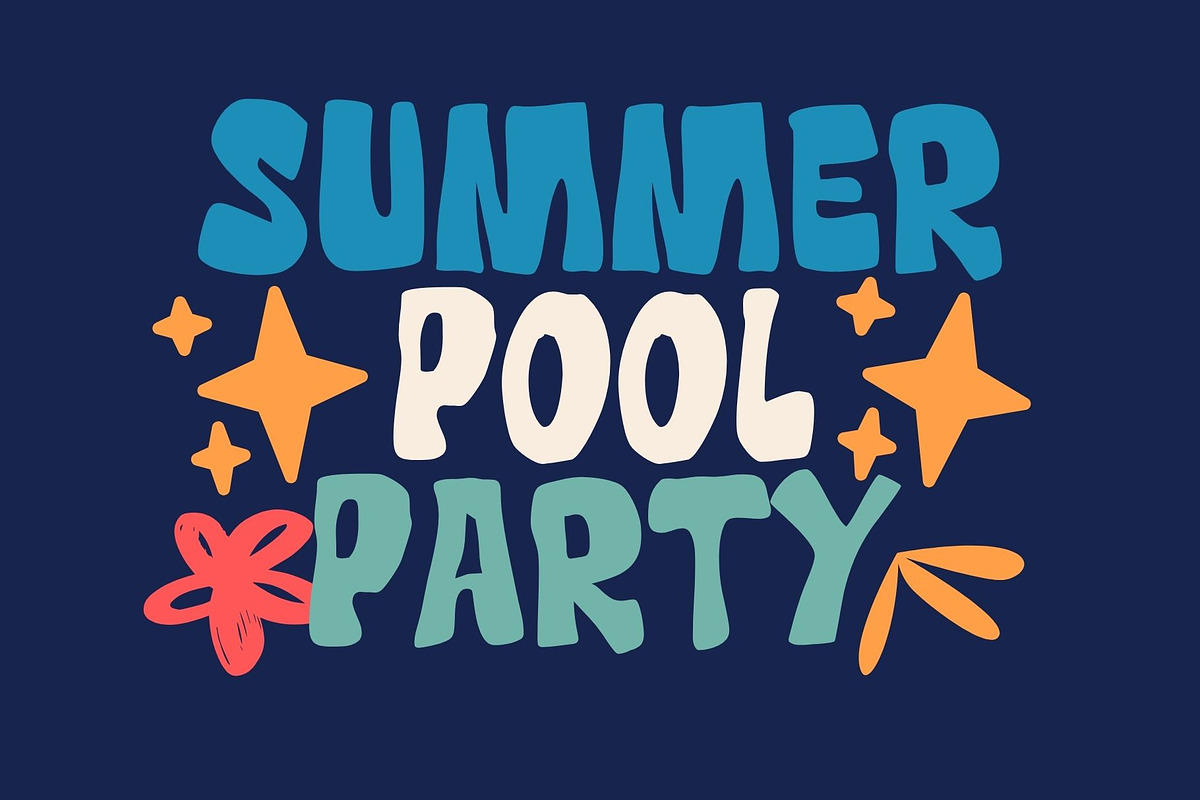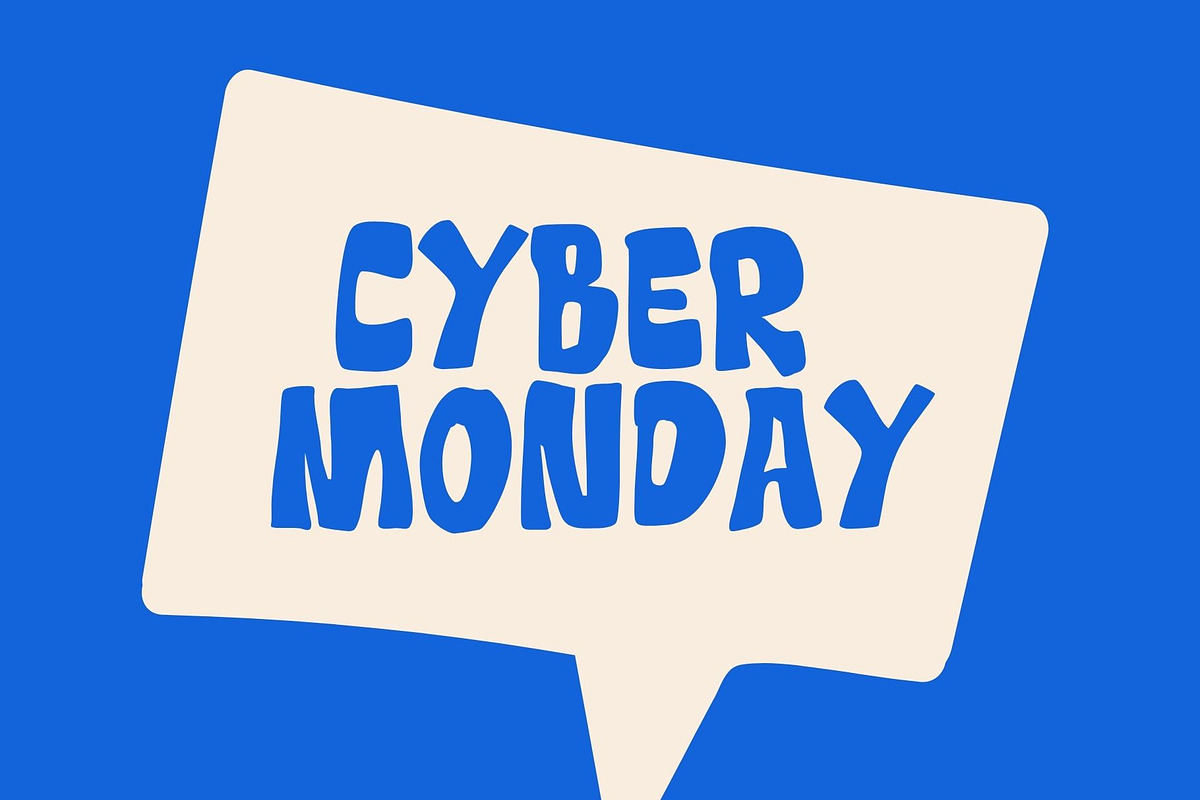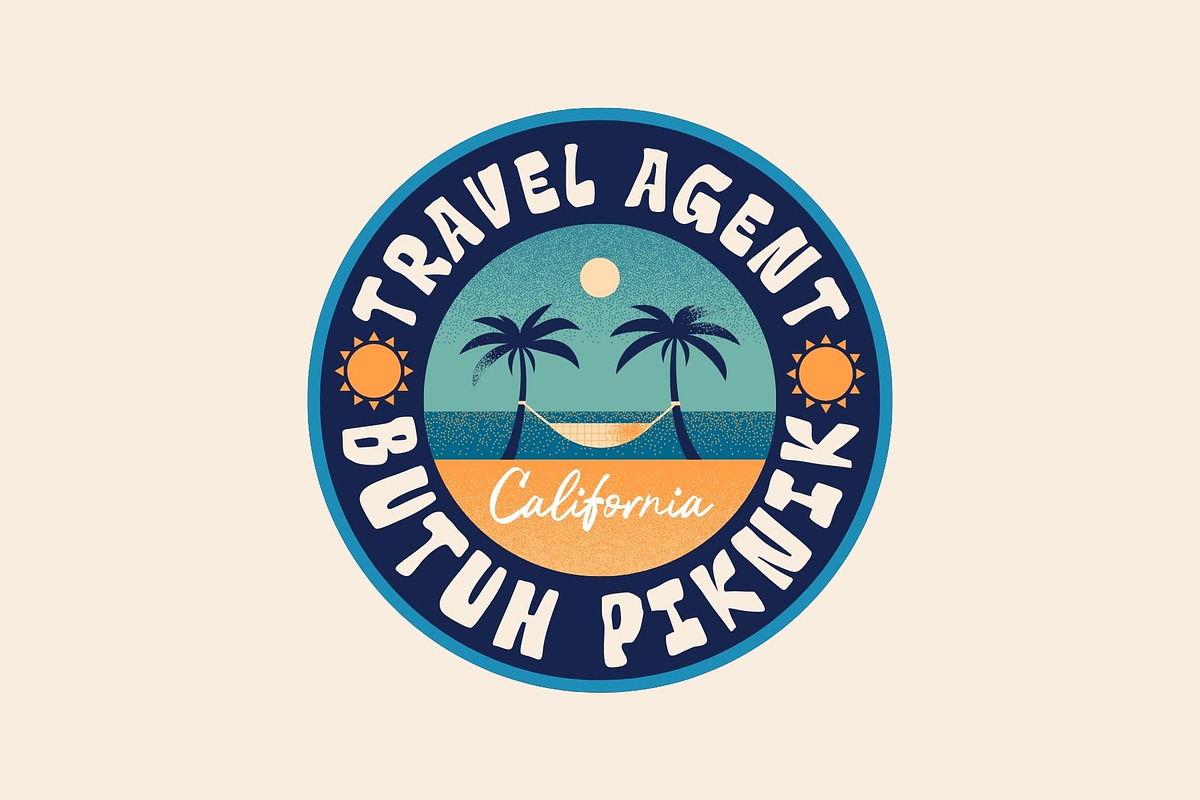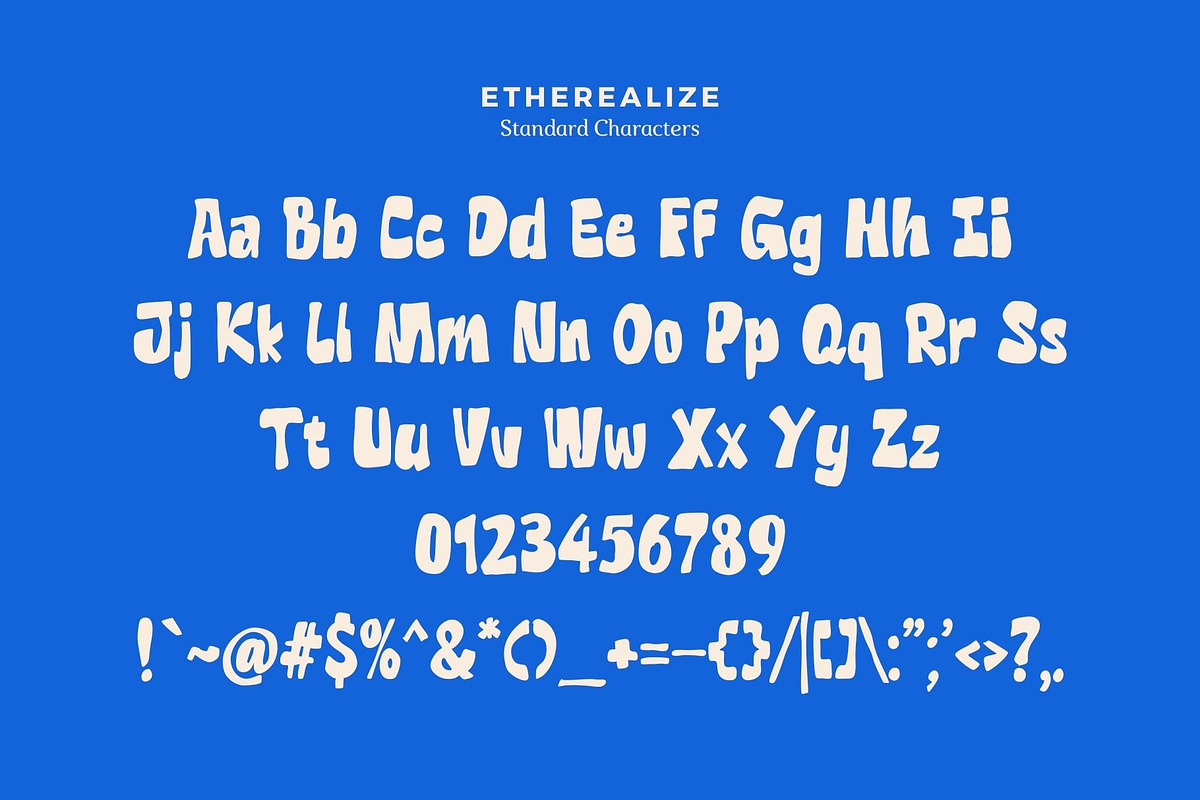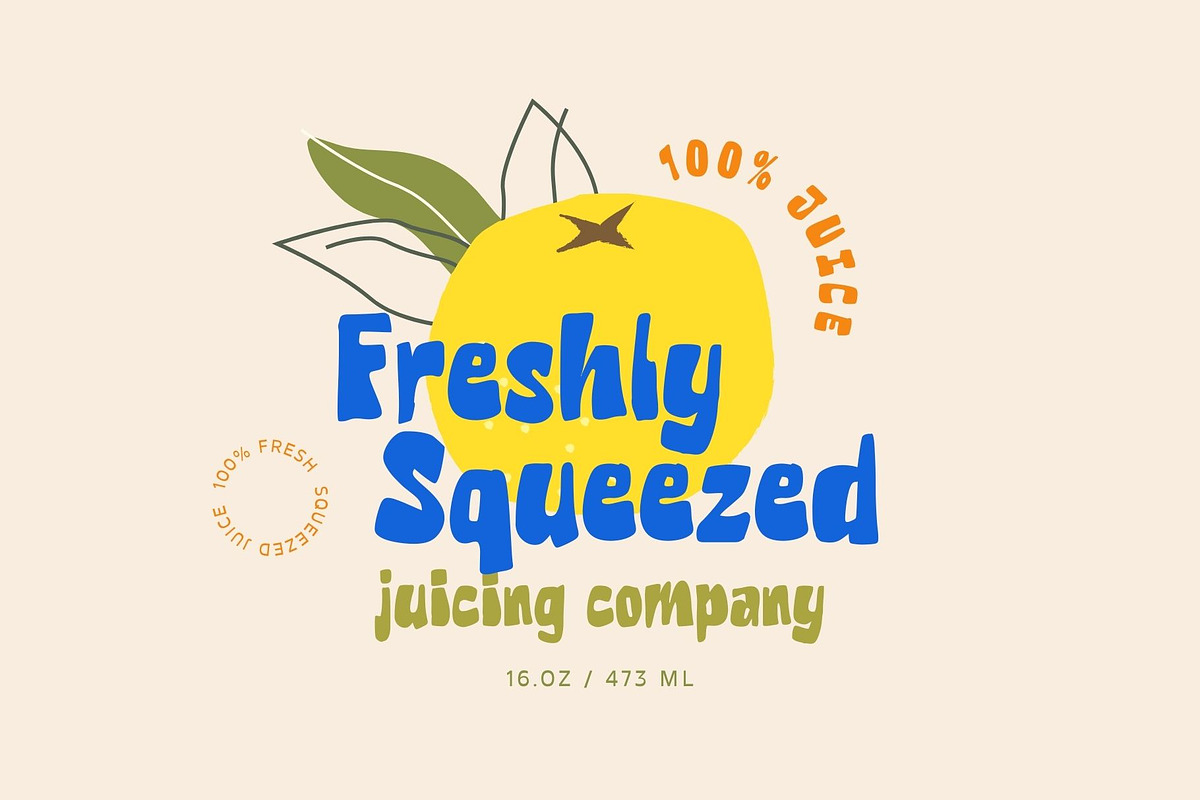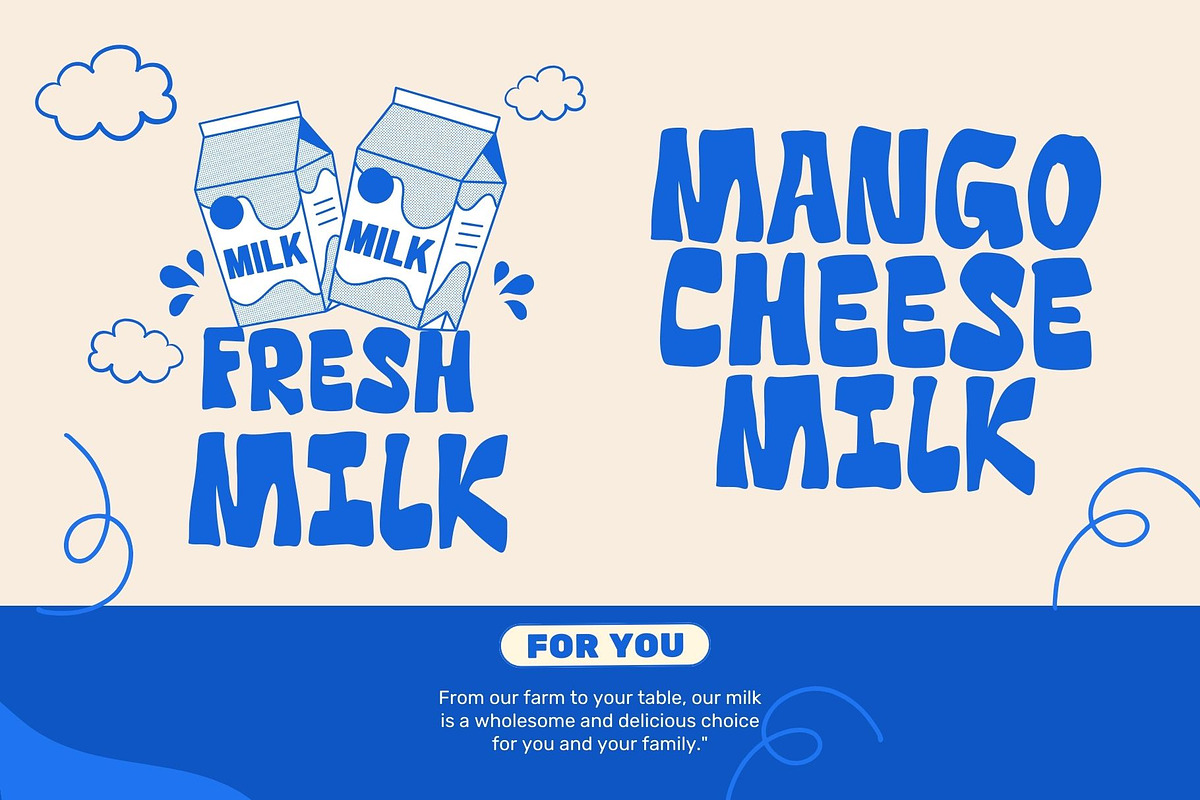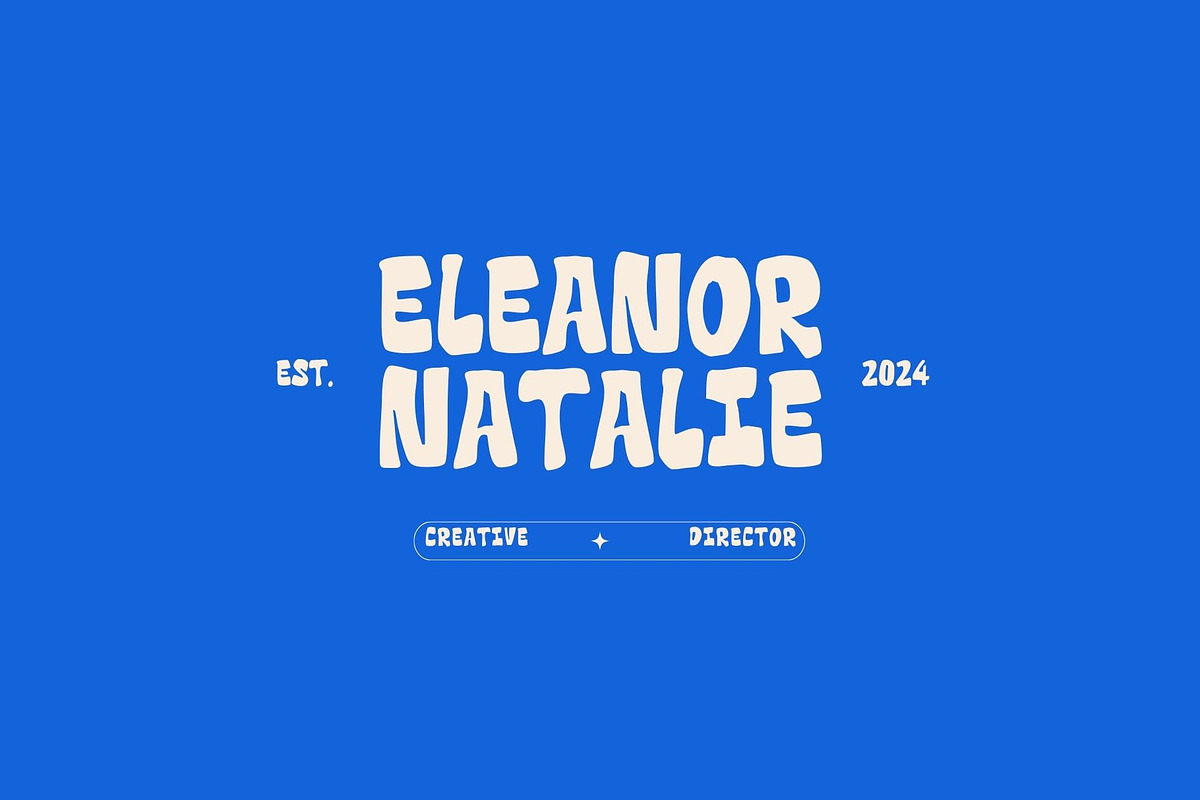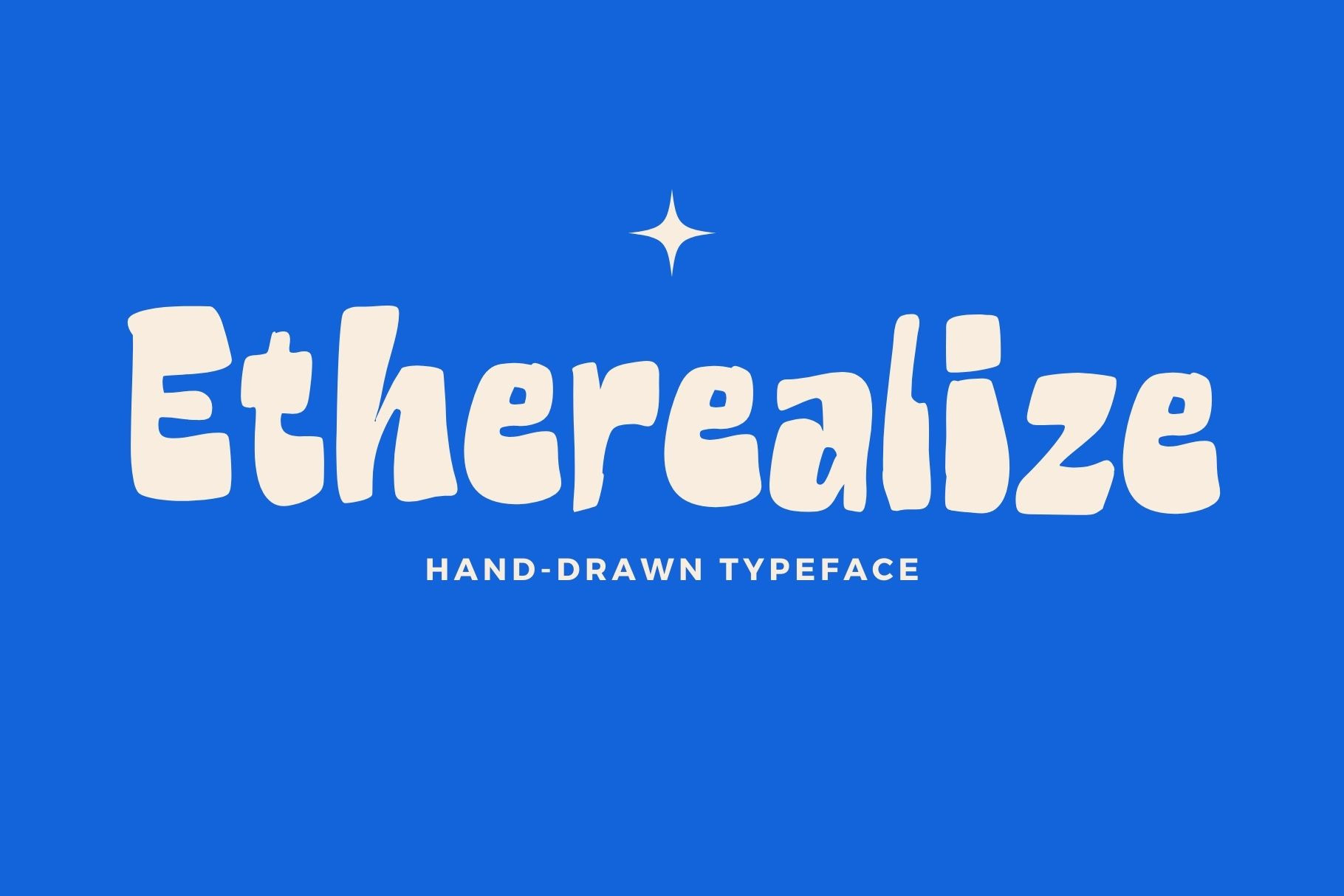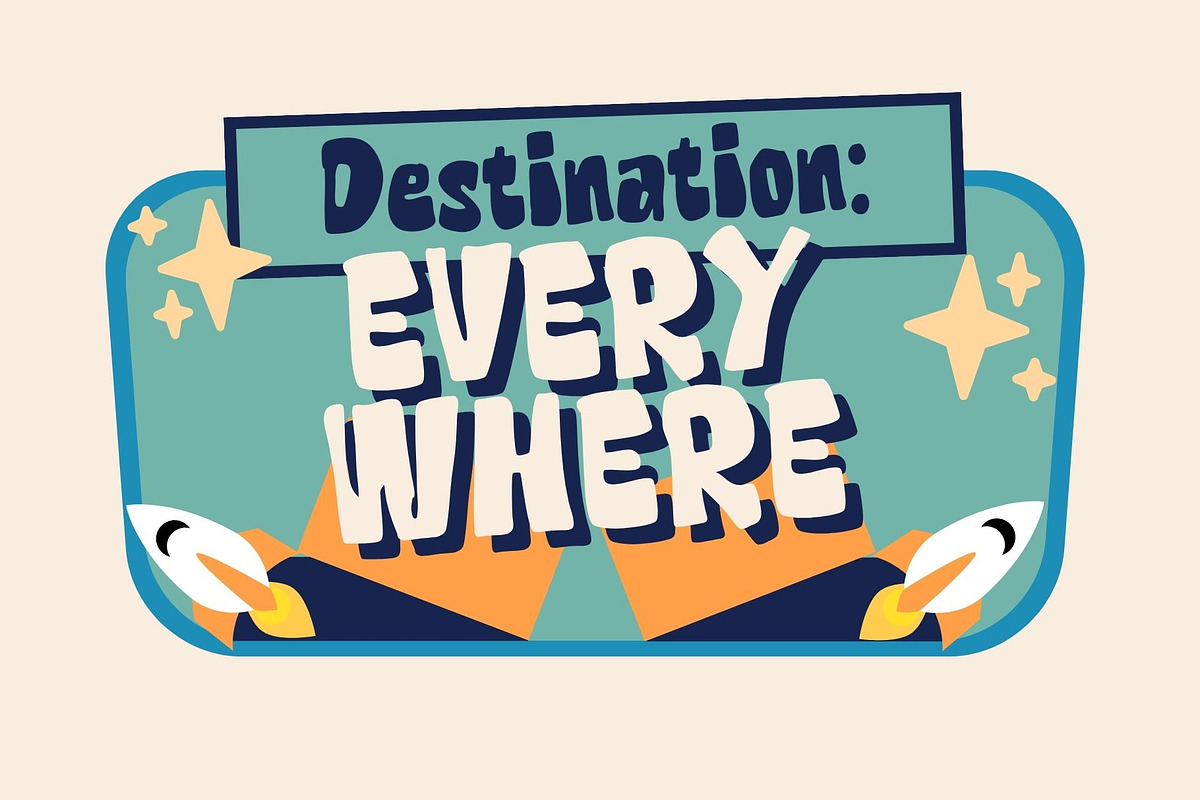
Etherealize - Handdrawn Typeface
"Etherealize" is a daring and eccentric display font that challenges traditional design principles.
- Upper and lowercase